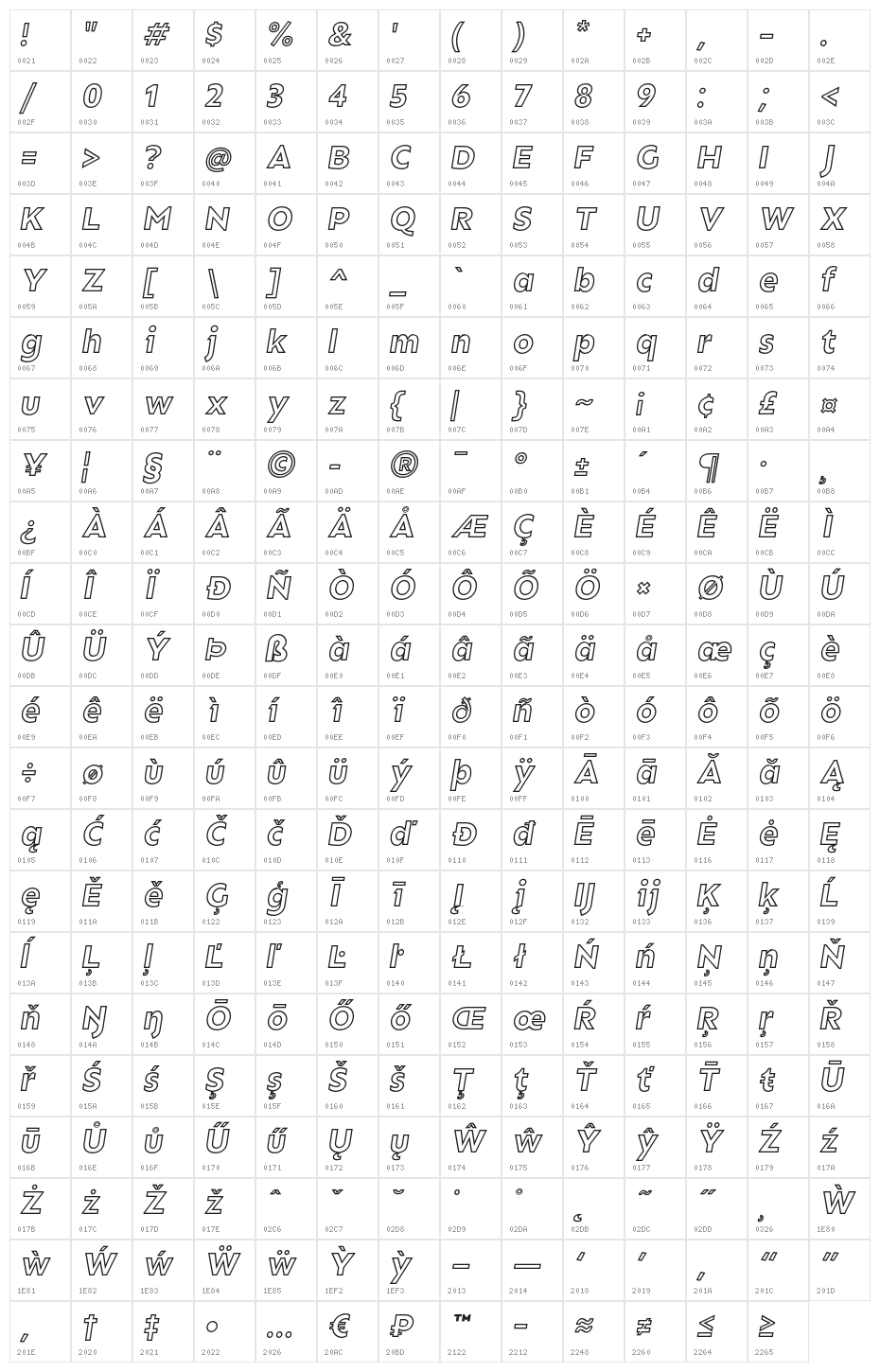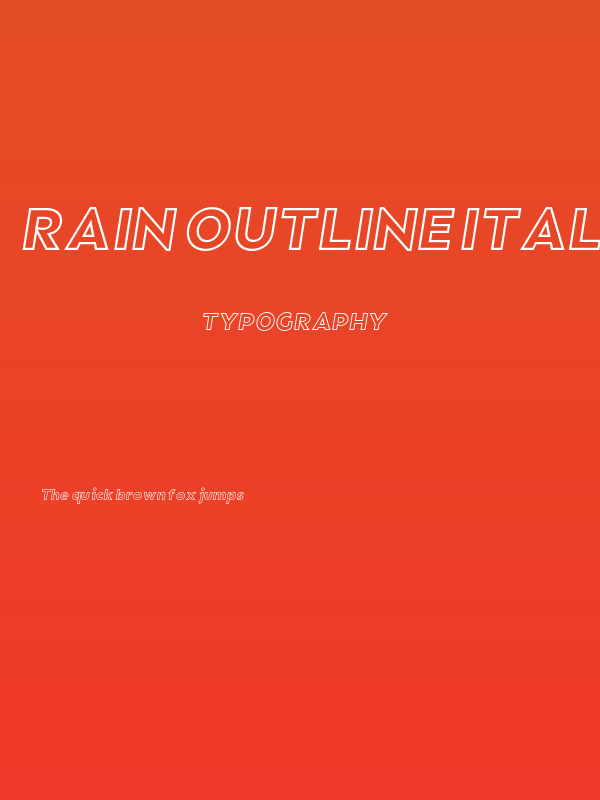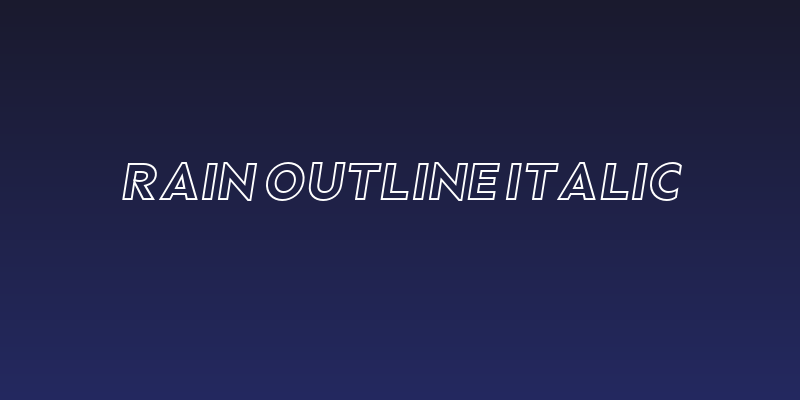
Rain Outline Italic Font
Rain Outline Italic Description
This font features a distinct outline style with a modern and sleek appearance. The characters are italicized, giving them a dynamic and forward-leaning posture. The uppercase and lowercase letters maintain a consistent design, with smooth curves and sharp angles that enhance readability. The numbers and special characters follow the same outline style, ensuring uniformity across all elements. The font's open structure makes it suitable for various design applications where a contemporary and stylish look is desired.
Proposed ProjectsIdeal for branding, posters, headlines, and any design project requiring a modern and stylish touch.